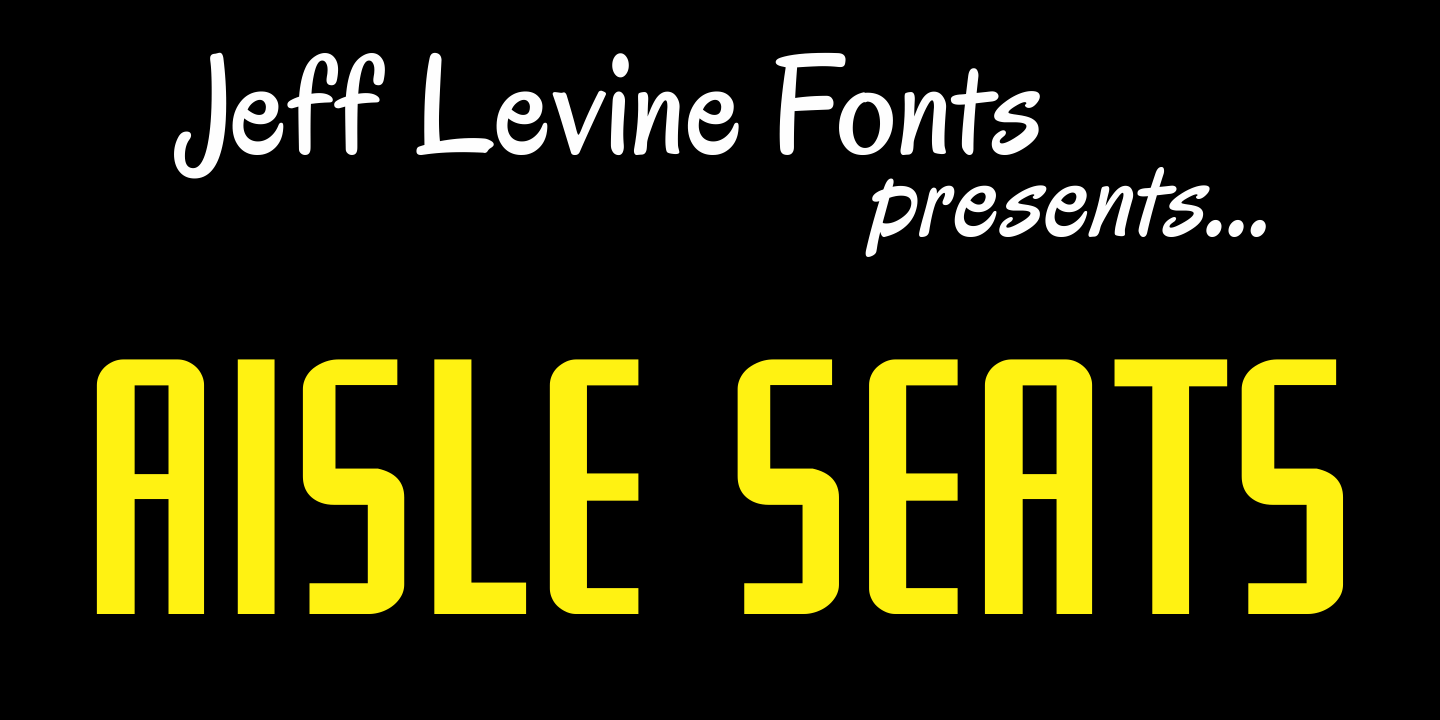
Aisle Seats
The Redikut Letter Company of Hawthorne, California specialized in die-cut cardboard display letters used by sign makers to achieve a three-dimensional effect on show card and display work.
A set of these letters purchased by Jeff Levine brought back memories of classic movie houses with their fancy display and lobby cards, and thus was created "Aisle Seats JNL".